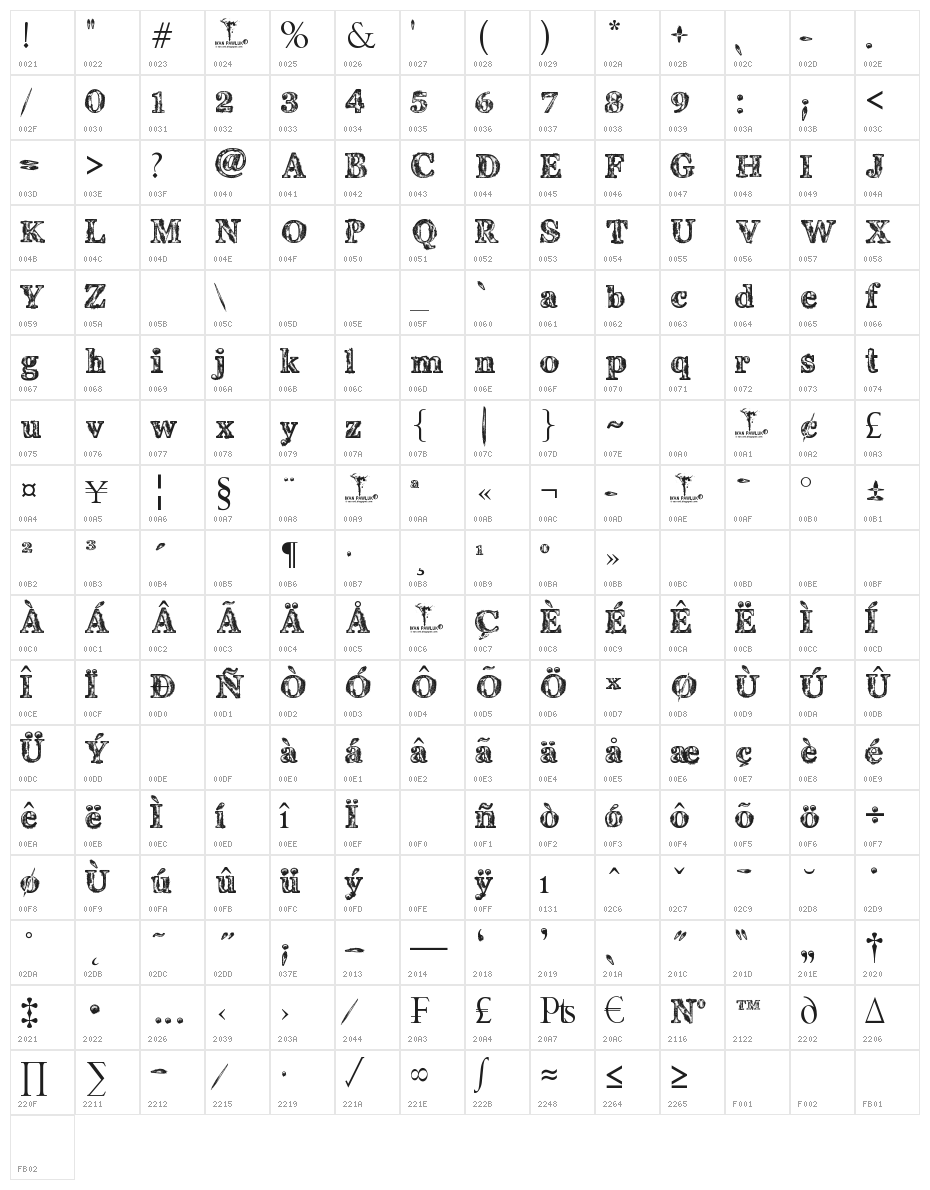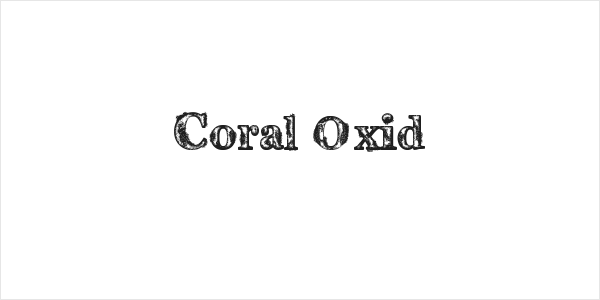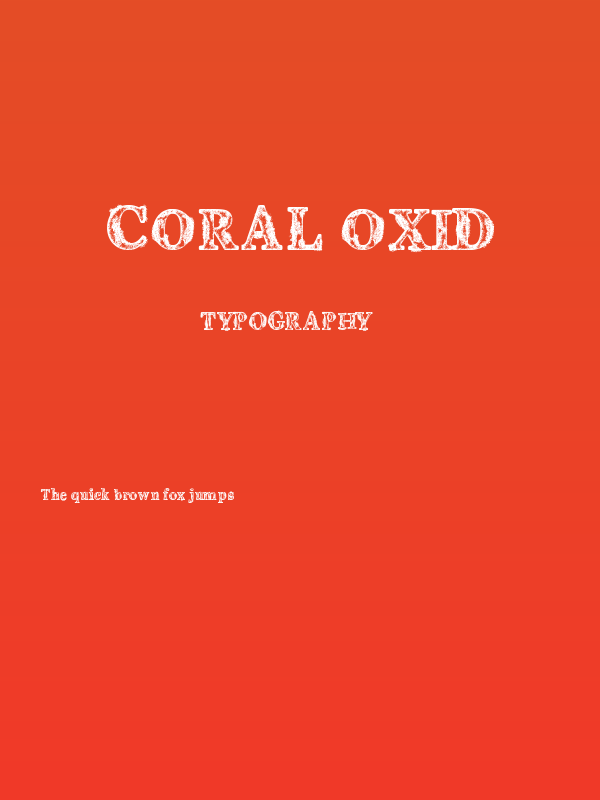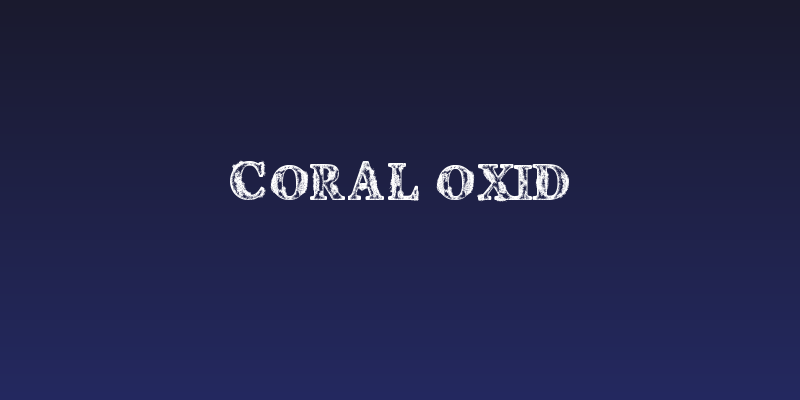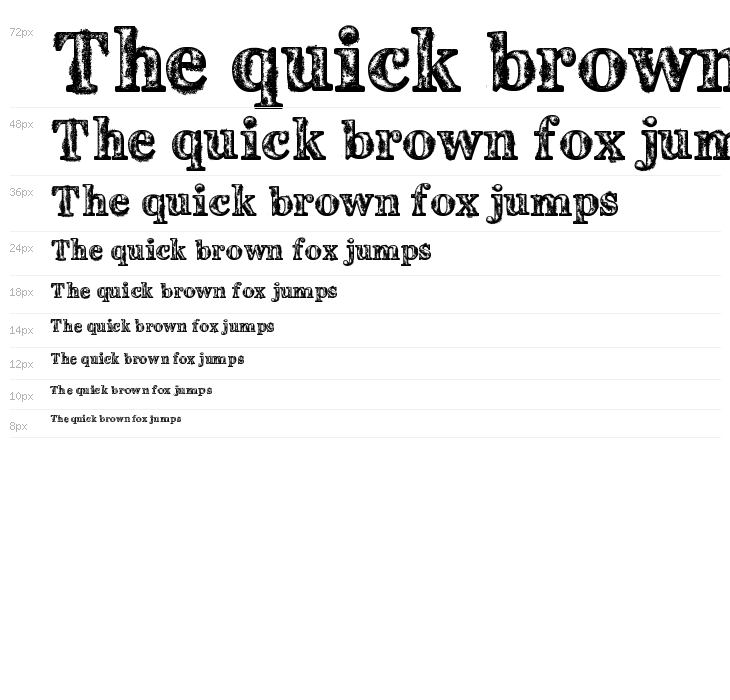
Coral Oxid Font
Coral Oxid Description
This font features a distressed, textured appearance that gives it a weathered, vintage feel. The characters are bold and substantial, with a rough, almost eroded texture that suggests a sense of age and history. The uppercase and lowercase letters maintain a consistent style, with strong serifs and a slightly condensed form. Numbers and special characters follow the same design principles, ensuring a cohesive look across all elements. This font's unique style makes it stand out, ideal for projects that require a touch of rustic charm or a historical aesthetic.
| Proposed Projects | Ideal for vintage-themed posters, historical event flyers, rustic branding, and any project needing a touch of aged elegance. |